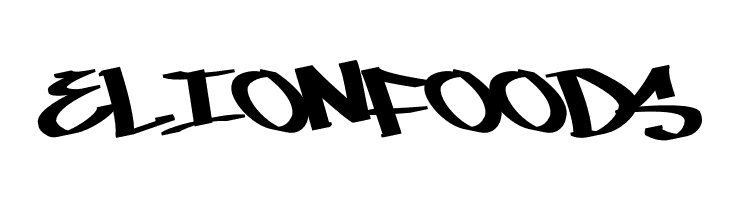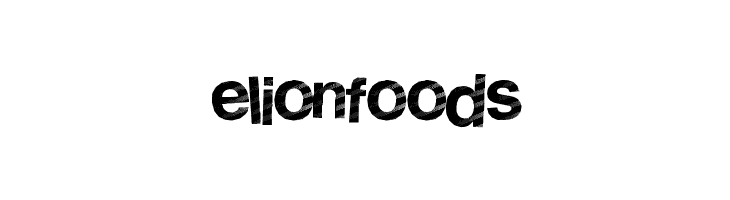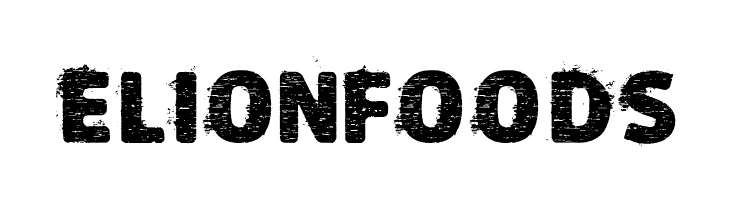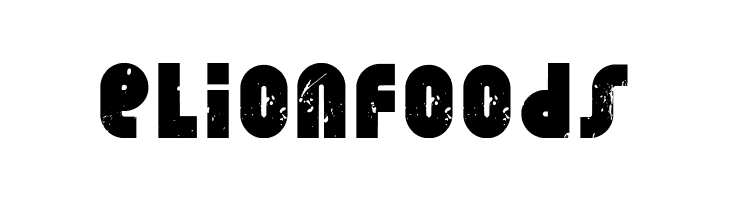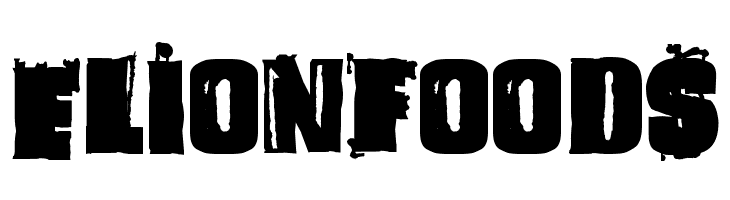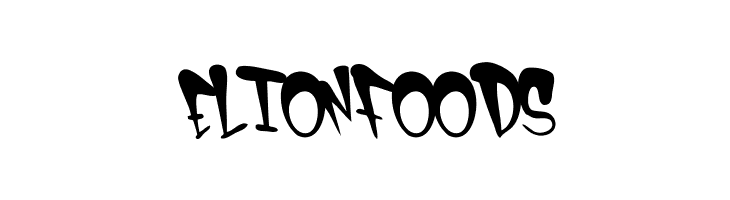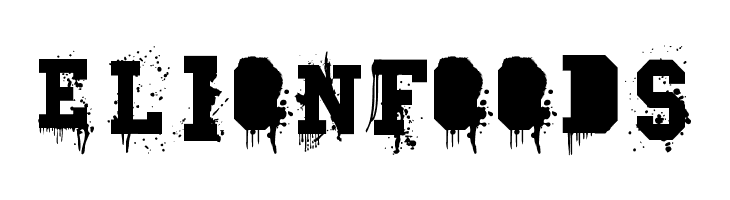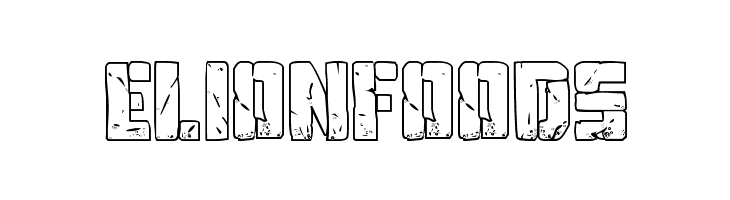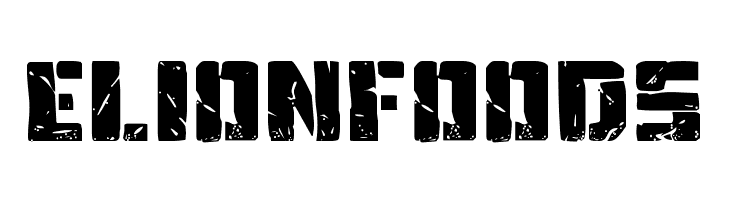
A bold, graffiti-inspired font with dynamic, angular strokes.
A bold, distressed font with a textured, grunge appearance.
A bold, distressed font with a grunge texture and rugged appearance.
A bold, distressed font with a rugged, industrial style.
A bold, distressed font with rough, textured edges and a grungy appearance.
A bold, graffiti-inspired font with dynamic and exaggerated strokes.
A bold, edgy font with sharp, angular strokes and a dynamic, intense style.
A bold, distressed font with a grunge aesthetic and textured splatters.
A rugged, distressed outline font resembling ancient ruins or weathered stone.